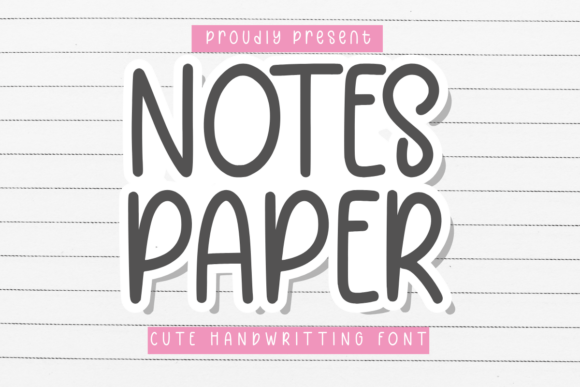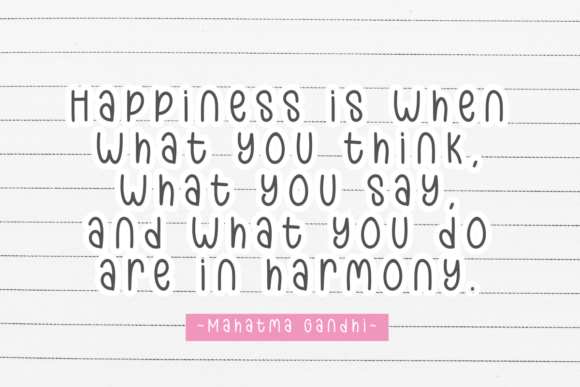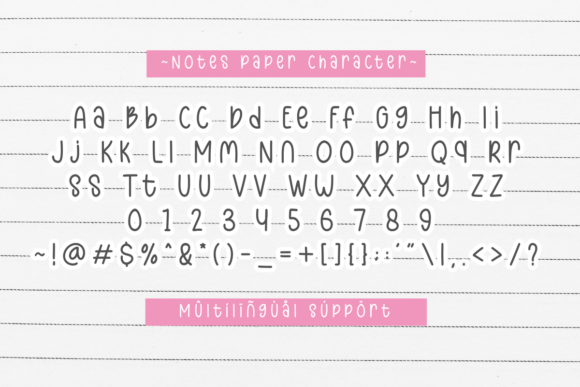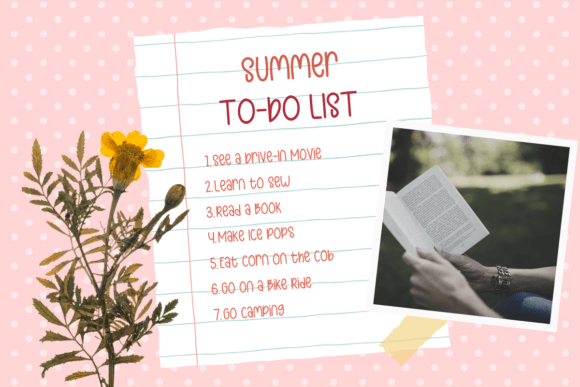
Notes Paper Font: A Cute Handwritten Font for Cricut Crafts
About the Notes Paper Font
Presenting Notes Paper Font, a unique and stylish typeface that will make your work stand out. Notes Paper is a cute and playful handwriting font, perfect for planners, stickers, cards, quotes, and craft projects. Ideal for creative moms who love DIY, journaling, and Cricut crafts!
Its playful, informal style makes it highly suitable for projects needing a friendly, approachable feel. Think children’s books, scrapbooking, social media graphics, or branding for small businesses focused on handmade goods or crafts. Avoid using it for large blocks of text or formal documents; its informal nature is best suited for short bursts of text.
Notes Paper Font pairs well with clean sans-serif fonts like Open Sans for a balanced contrast, or a more geometric sans-serif like Montserrat for a modern feel. For a touch of elegance, consider pairing it with a delicate script font like Great Vibes, but use it sparingly as an accent.
The overall personality is undeniably cheerful and whimsical, lending itself perfectly to brands aiming for a youthful and creative image.
Notes Paper Font Usage Examples
Notes Paper Font Example